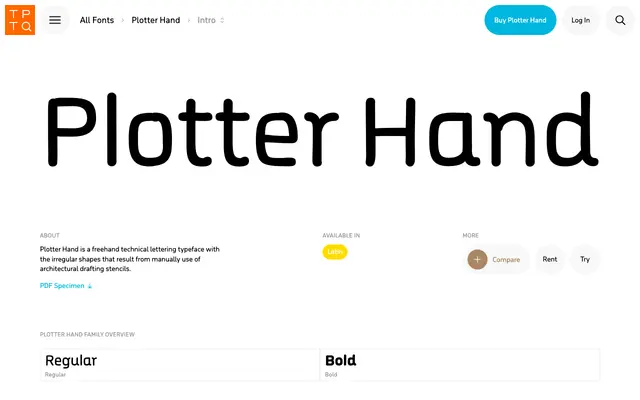
Plotter Hand
A sub-family of Nikola Djurek's Plotter super-family, simulating the irregular letterforms produced by manually tracing architectural stencils.
Plotter Hand captures the slight imprecision of hand-guided stencil lettering from technical draughting practice, distinguishing it from the mechanically precise cuts elsewhere in the Plotter family. The forms are monolinear with round terminals, reduced to stems, arms, curves and diagonals in the manner of technical pen lettering. Two stylistic sets provide alternative forms for the lowercase 'a' and a serifless capital 'I', with the full family available as part of the 47-font Plotter Suite.
Plotter Hand is a monolinear sans with irregular, hand-drawn qualities derived from architectural stencil use, placing it firmly in the technical/stencil sans tradition rather than conventional grotesque or geometric categories.